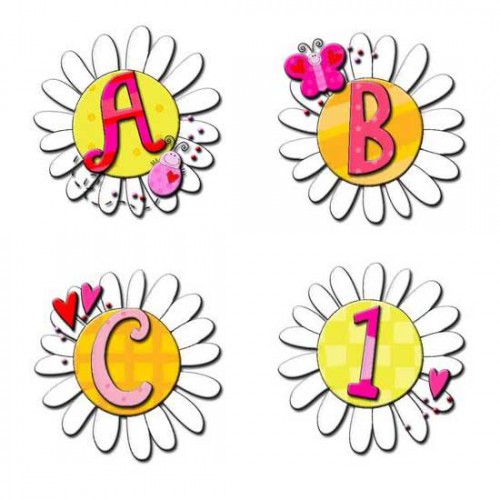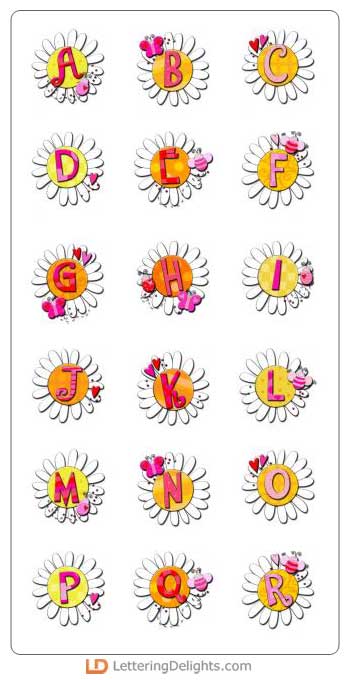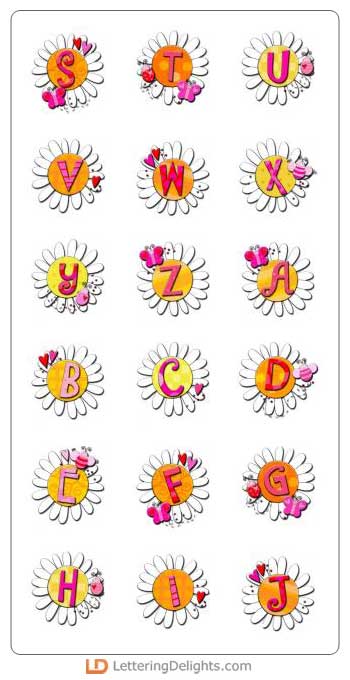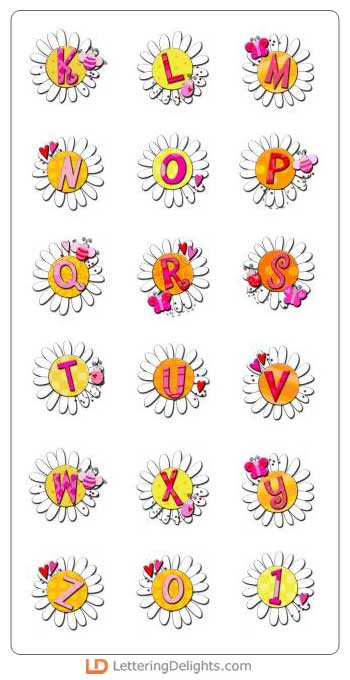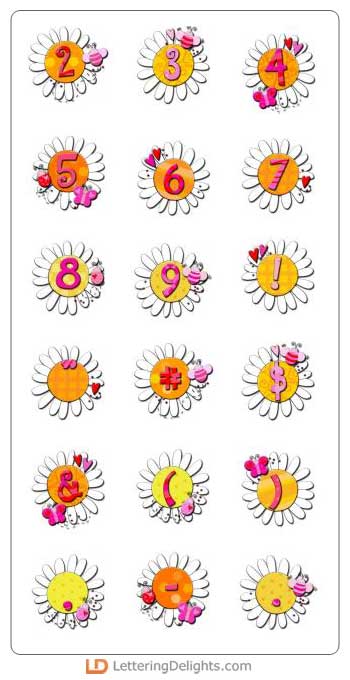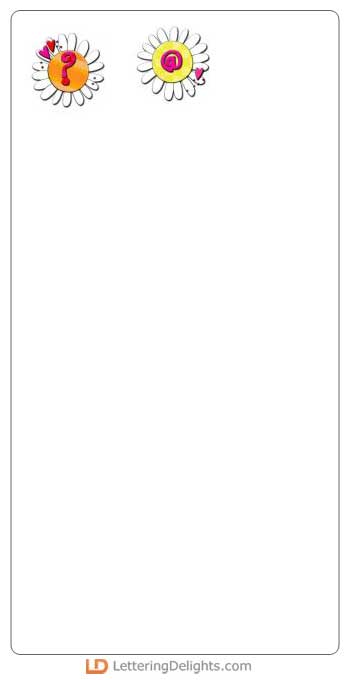
He loves me, he loves me not ... This fun alphabet has hearts & cute butterflies, but he main focus is the large white daisy. This reminds you of pulling off the petals and repeating "he loves me, he loves me not ..."